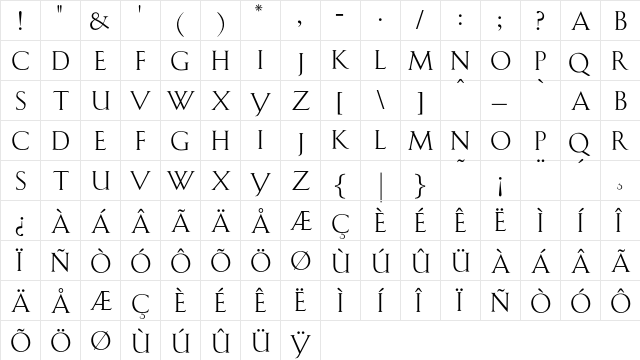
LaurinText Regular
Design Context for LaurinText Typeface
LaurinText offers clean, dependable letterforms without strong stylistic allegiance, making it a practical choice for designers who need flexibility.